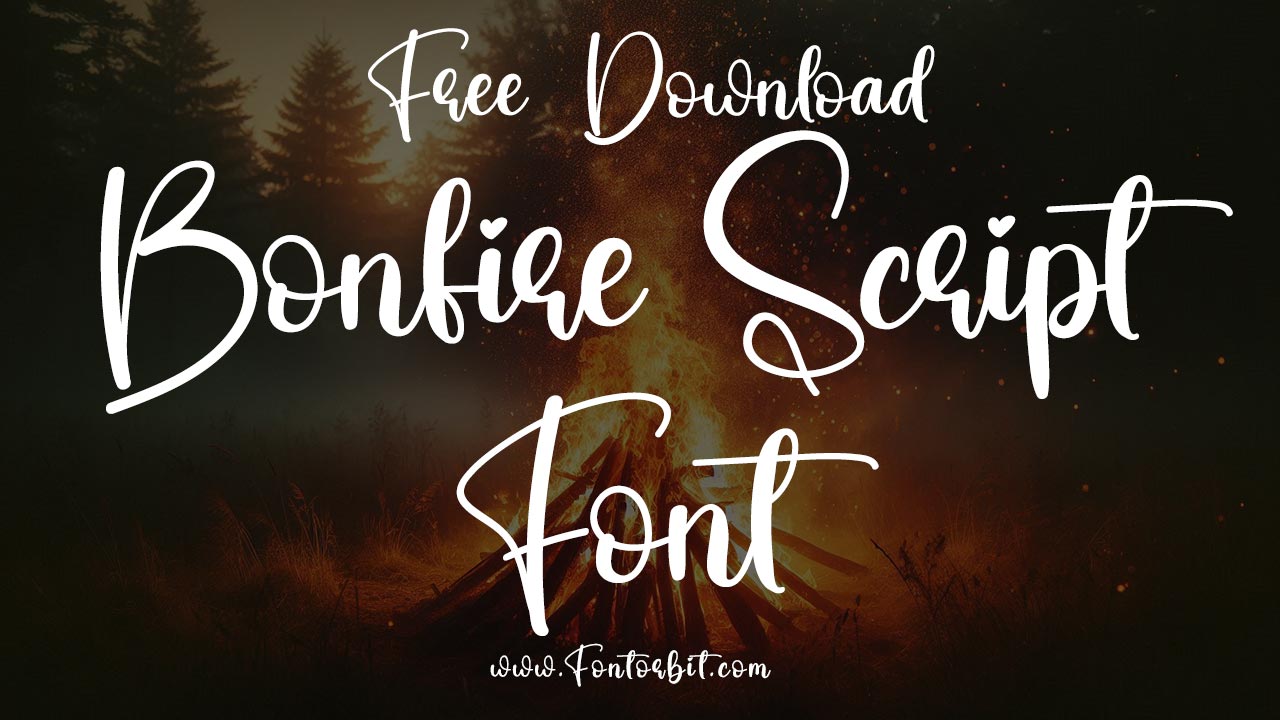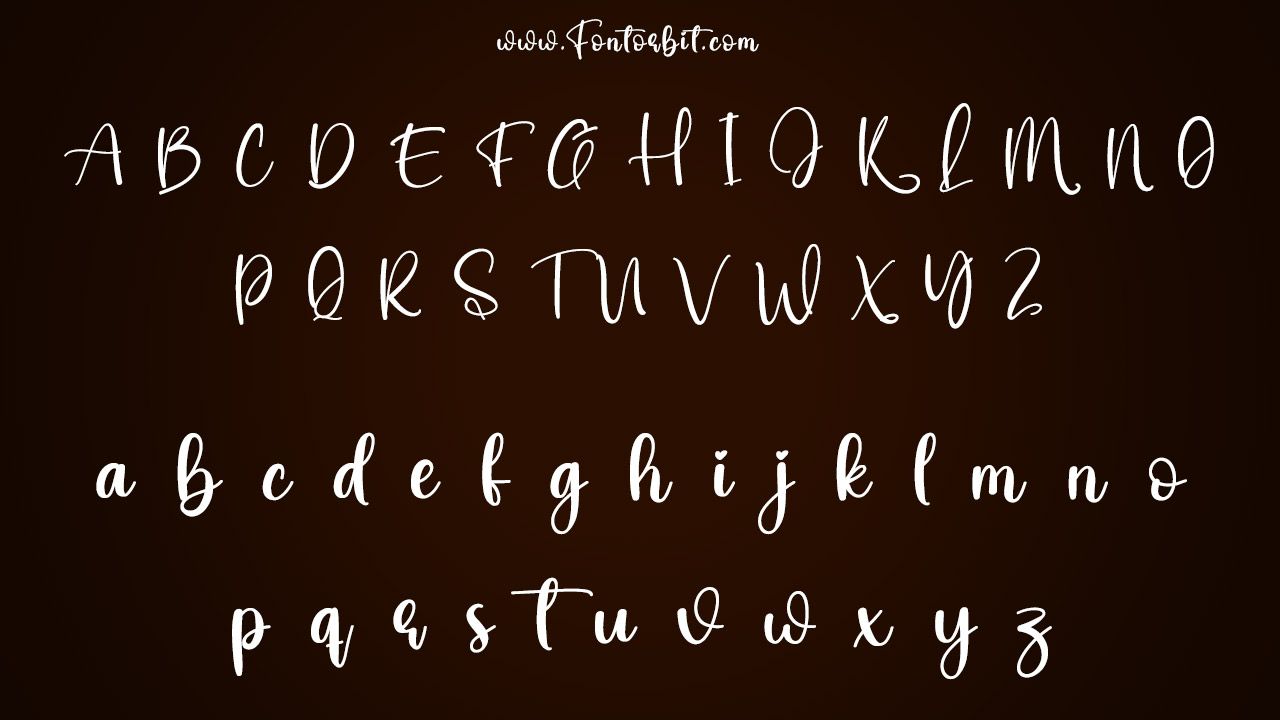
Bonfire Script Font is a striking handmade brush script designed by Hustle Supply Co. Released on December 15, 2016, Bonfire is known for its bold and expressive style.
Types Of The Bonfire Script Font
a. Bonfire Regular
b. Bonfire Rough
The Bonfire Script font is ideal for creative projects, apparel designs, and promotional materials. It also adds a personal touch to custom invitations and home décor items, making it a versatile choice for various stylish and personalized applications.
Bonfire Script Font stands out with its bold, handmade brush script style, ideal for various design applications. Whether you’re working on quotes, branding, or custom merchandise, Bonfire offers a unique and personal touch.
1.What Are The Best Ways To Showcase Bonfire Script Font In A Portfolio?
Highlight Bonfire Script Font in invitations, book covers, and special events. Use it for headings and main content to emphasize its handwritten style and decorative elements.
3.What Are The Best Design Applications For Using Bonfire Script Font?
Bonfire Script Font excels in Adobe Illustrator and other design projects requiring decorative fonts. It’s ideal for creating logos, retro-themed graphics, and invitation designs.
4.What Are The Disadvantages Of Using Bonfire Script Font In Print Design?
The Bonfire Script Font’s intricate brush style can be less legible at small sizes and may not suit all types of commercial use or detailed content due to its decorative nature.
6.What Are The Contemporary Uses Of Bonfire Script Font In Graphic Design?
This font is popular for creating impactful quotes, eye-catching headings, and custom merchandise like T-shirts and mugs.
7.What Are The Best Color Combinations To Use With Bonfire Script Font?
Bonfire Script looks great with bold, contrasting colors against clean backgrounds, enhancing its handmade and expressive qualities.
8.What Makes Bonfire Script Font Unique?
Its bold, handmade brush style and additional features like alternate lowercase characters and unique swashes set Bonfire apart from other scripts.
9.Is Bonfire Script Font Easy To Read?
Yes, Bonfire Script is designed to be readable with its clear letterforms and bold style, though it is best used for short texts and highlights.